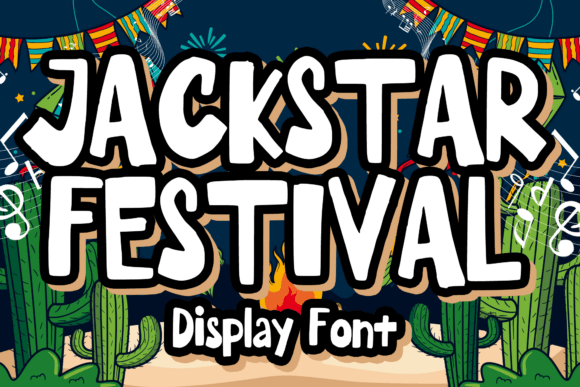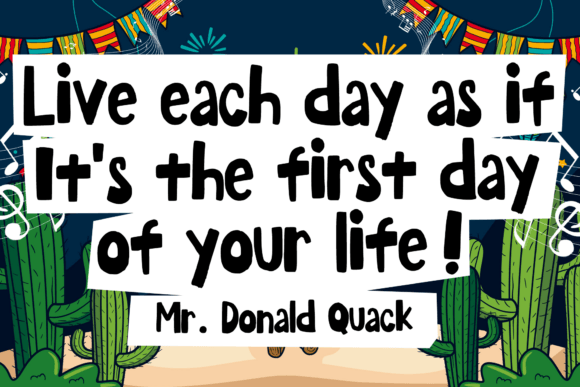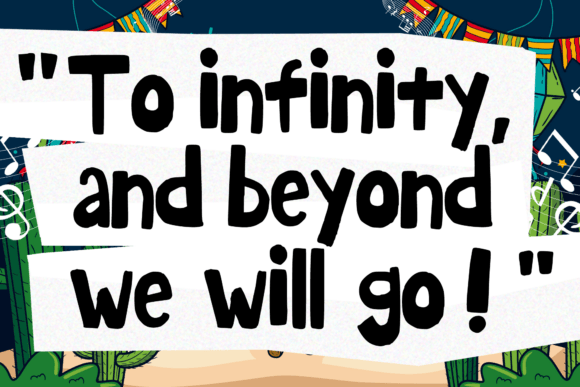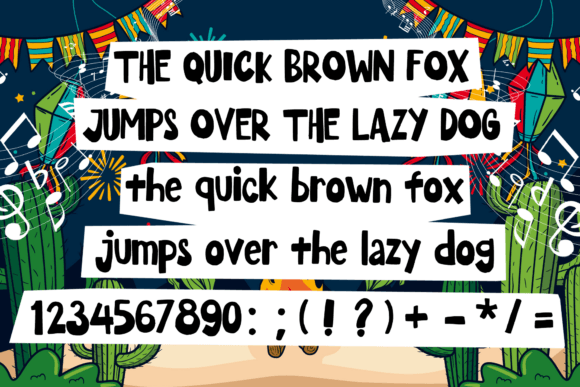
Jackstar Festival Font
About the Jackstar Festival Font
The Jackstar Festival Font offers a perfect balance of form and function for your design needs. Jackstar Festival is a cute and festive cartoon display font. It will elevate a wide range of design projects to the highest level. You can use this font for many design ideas such as stickers, t-shirt designs, amazing logo designs, magazine or book covers, comics, cartoon drawings, daily typing, and many more. This font will add a super cool touch to your designs!
Jackstar Festival’s playful, cartoonish style is ideal for headlines, short text blocks on posters, and branding for children’s products or events with a fun, lighthearted vibe. It excels in applications like stickers, logos, and social media graphics where its whimsical charm can shine. However, its low x-height and unique letterforms make it unsuitable for body text or UI elements requiring high readability.
Pairing Jackstar Festival with a clean sans-serif like Open Sans for body copy creates a strong contrast, allowing the display font to pop. For a more cohesive, playful feel, consider pairing it with a rounded geometric sans-serif such as Lato. Avoid pairing it with overly ornate or highly contrasting fonts that might visually clash with its cartoonish nature.
The font’s core personality is undeniably cheerful and informal, radiating a sense of fun and festivity. It’s best suited for brands and projects targeting younger demographics or those seeking a distinctly playful aesthetic.